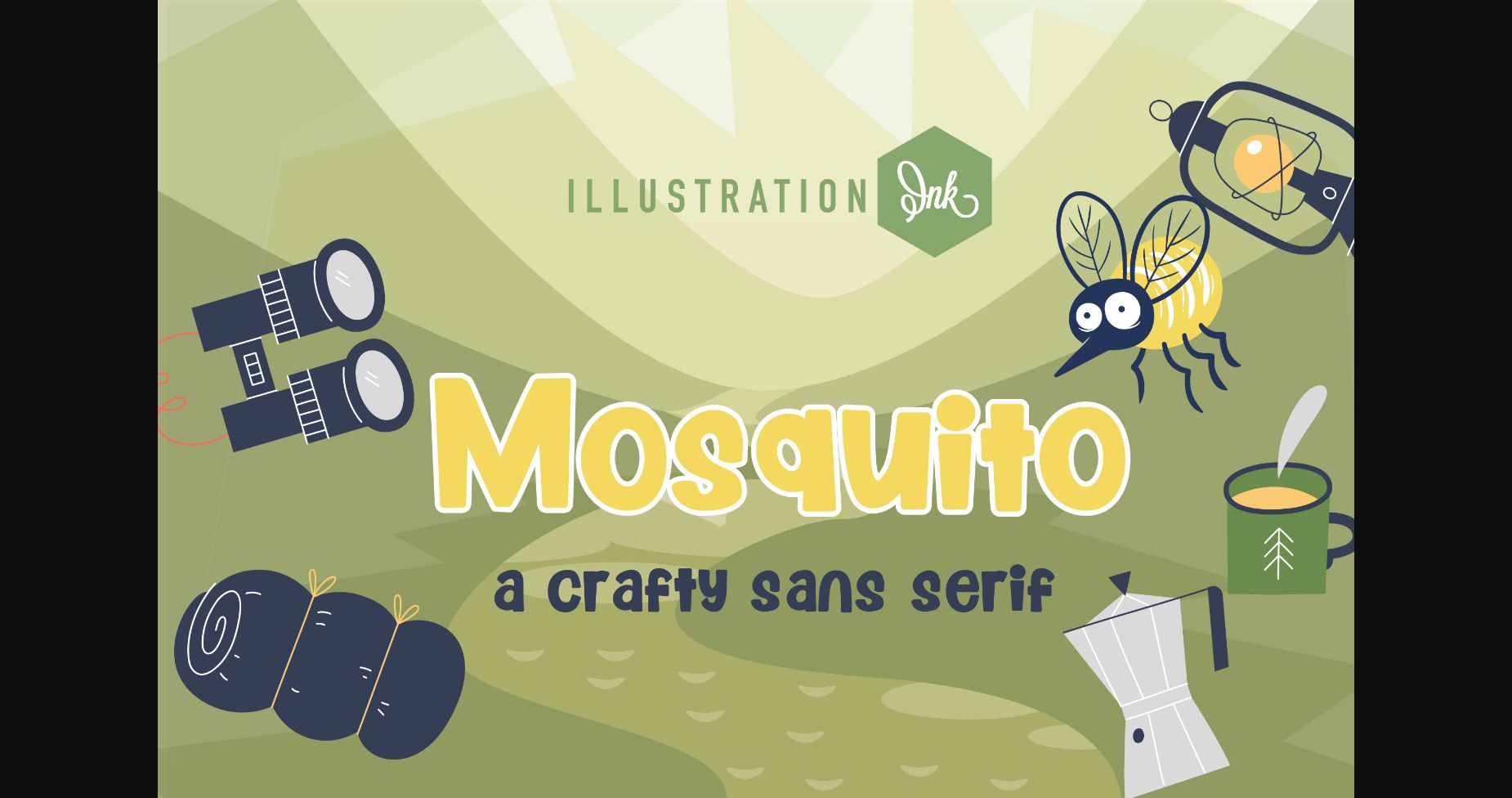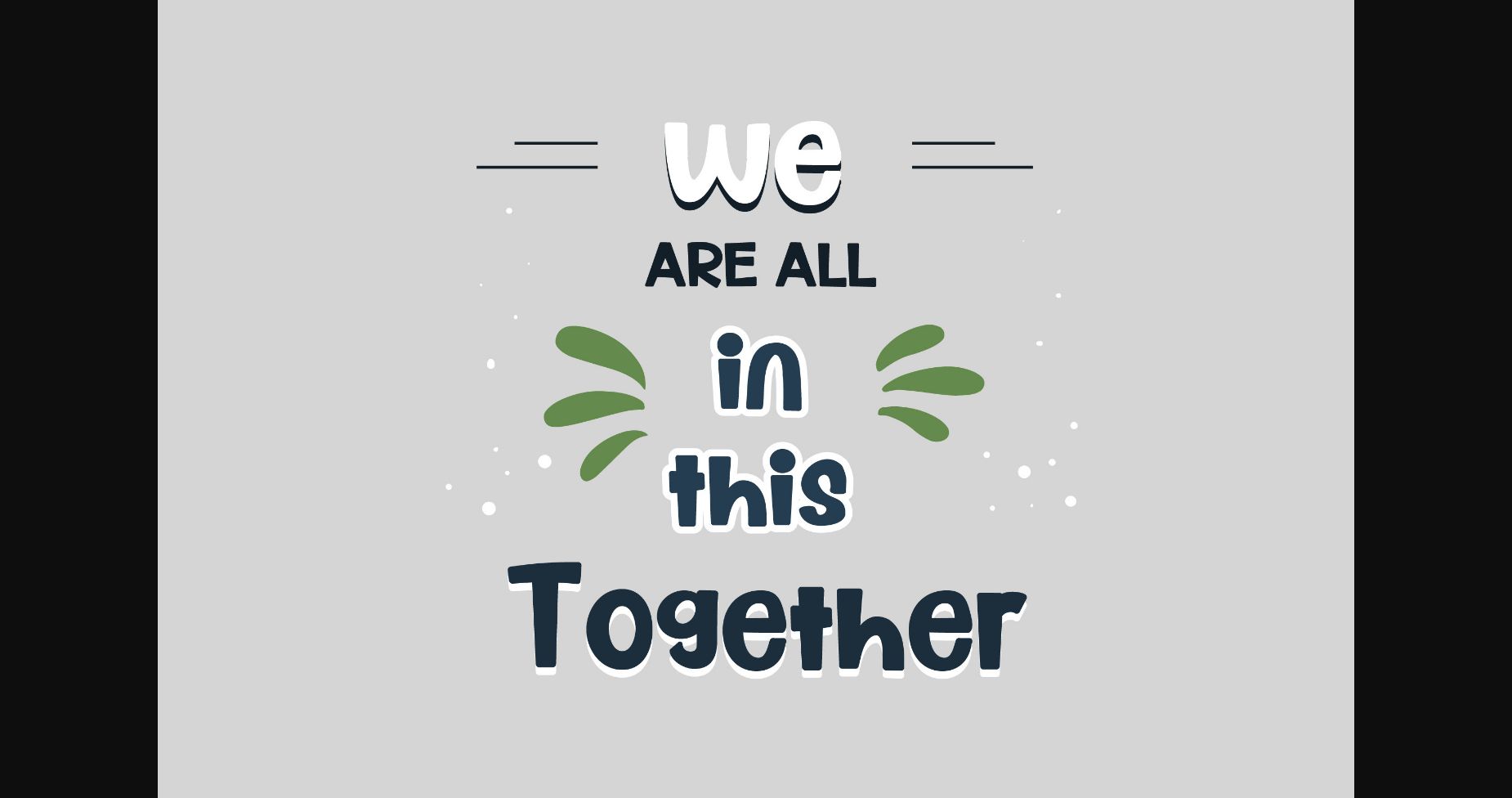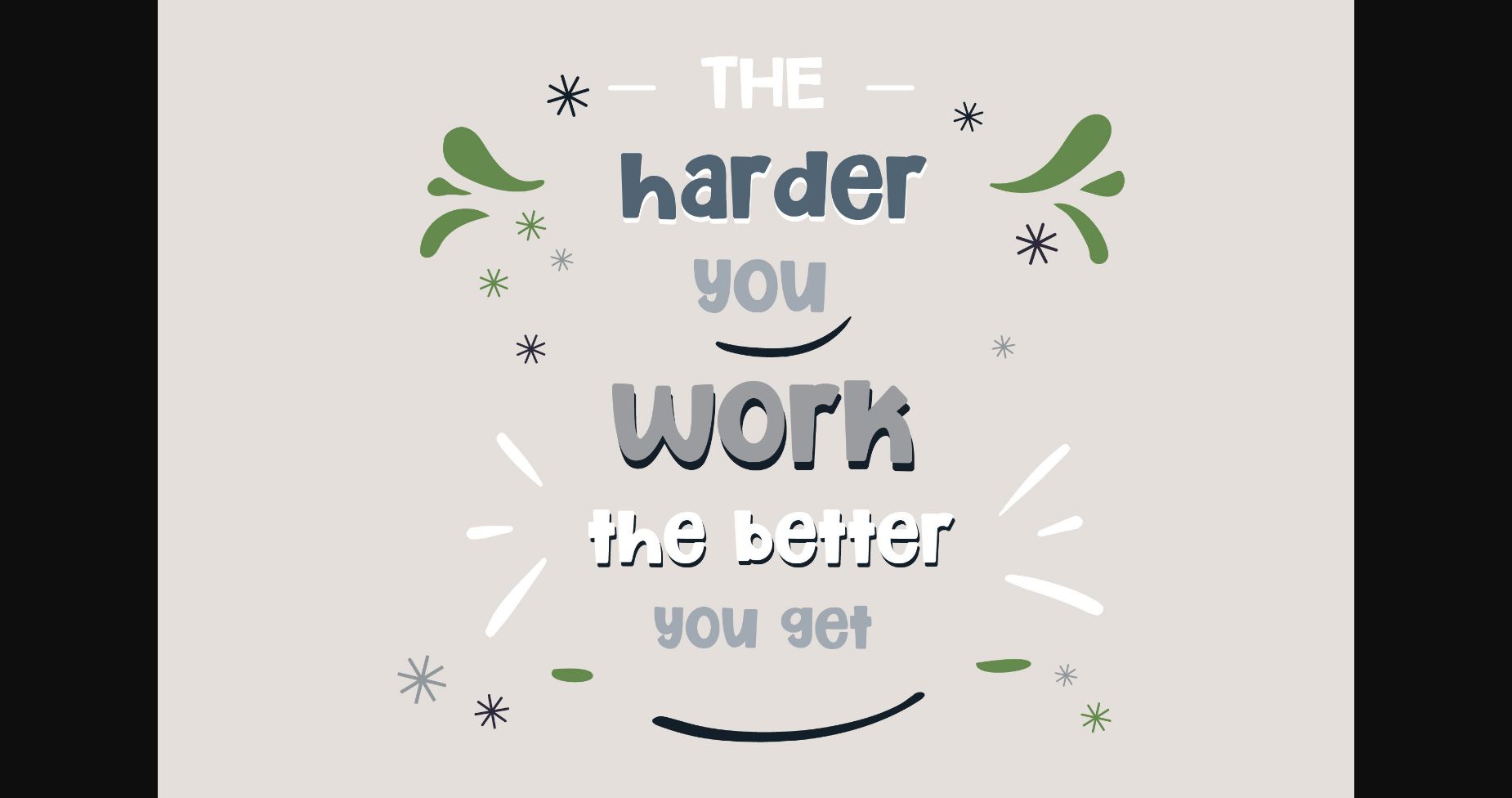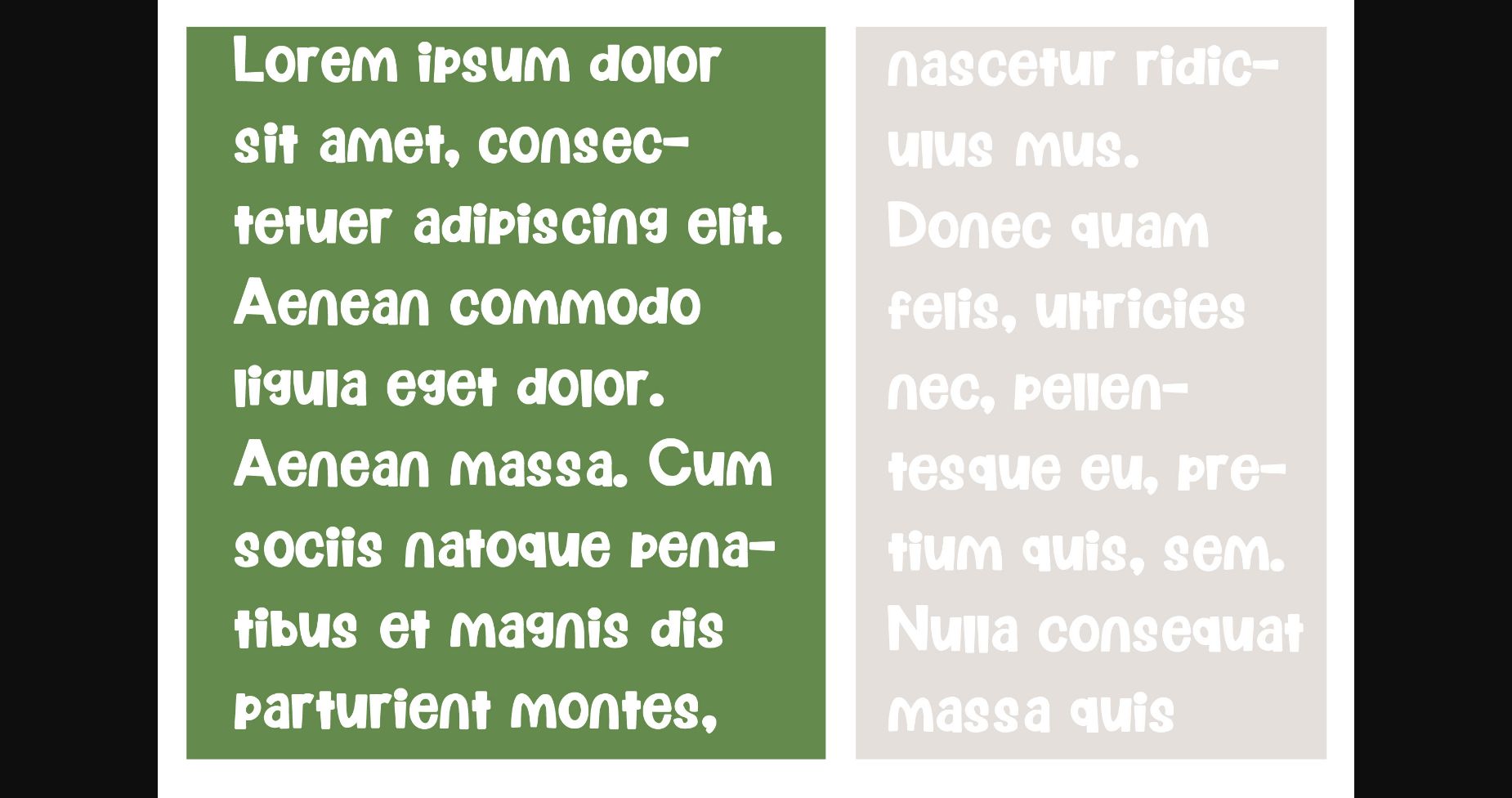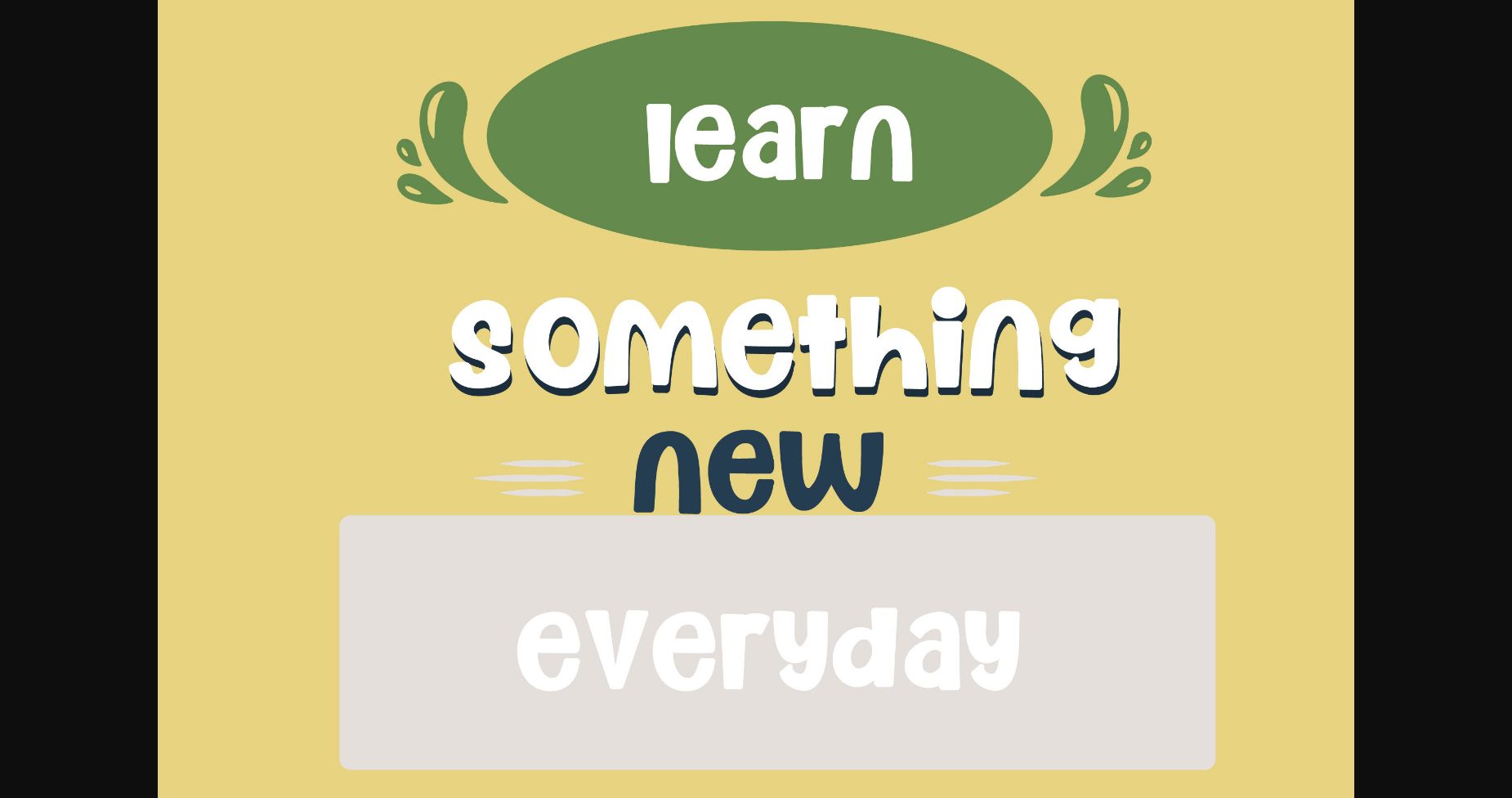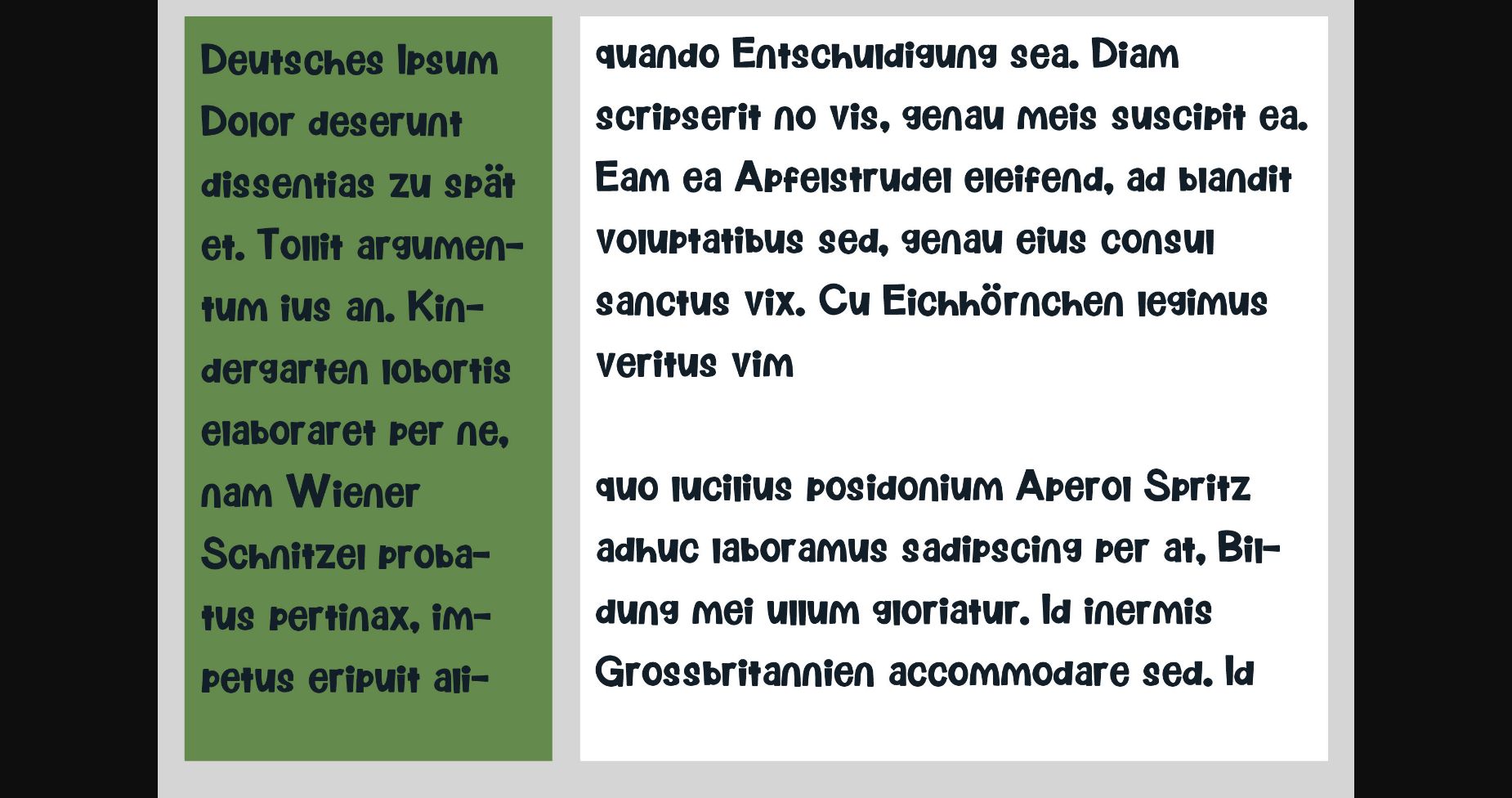
Mosquito Font
About Mosquito Font
Mosquito is a modern and versatile sans-serif font that is perfect for any project. Its sleek, contemporary lines make it perfect for logos, headlines, and other design elements. Its legibility makes it easy to read and its attractive style gives it a modern edge. Perfect for any design.